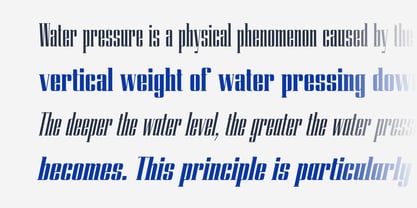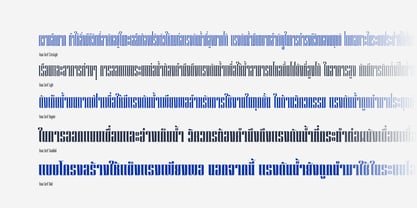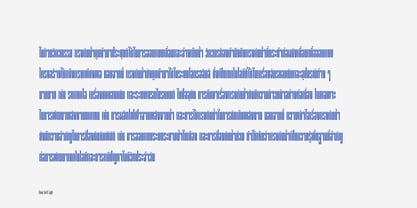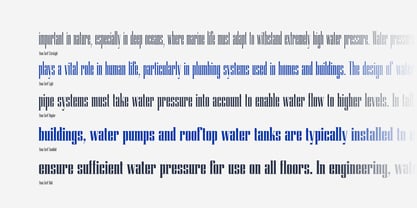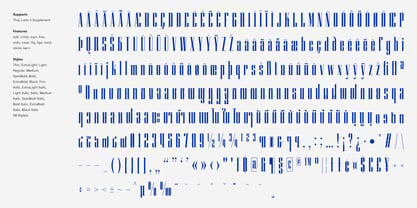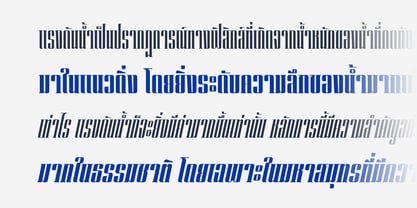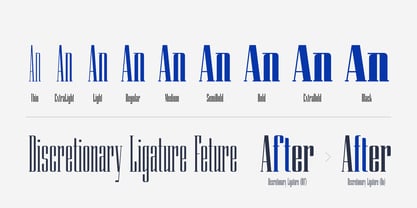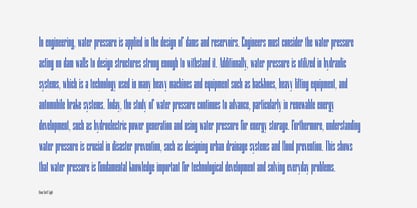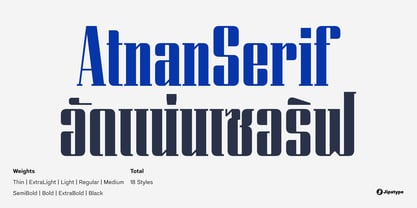
Atnan Serif
by Jipatype
The Atnan Serif Font Family was designed by Anupap Jaichumnan and published by Jipatype. Atnan Serif contains 18 styles and family package options. More about this family
Atnan Serif is a serif typeface designed to be compressed. The overall letterform structure has a flat-backed square characteristic. It is suitable for promotional materials with limited space or when creating attention-grabbing headlines. The font consists of 18 styles, covering weights from the thin to the black weight, and supports both Latin 1 and Thai character sets.
Designers: Anupap Jaichumnan
Current Foundry: Jipatype
Jipatype is a one-man type foundry based in Bangkok, Thailand, officially established in 2022 but operating since 2019 by Anupap Jaichumnan. The foundry's name comes from the Thai word จิปาถะ, which translates to "miscellaneous", "assorted", or "various". This reflects the variety of design approaches and influences that are present in its typefaces. Jipatype creates fonts that blend traditional Thai design elements with modern typography trends. Each typeface is developed with careful attention to both aesthetic details and practical usability, making them suitable for a range of design projects. The work at Jipatype is characterized by a straightforward and functional approach to design, without unnecessary embellishment, aiming to provide clear and effective typographic solutions.